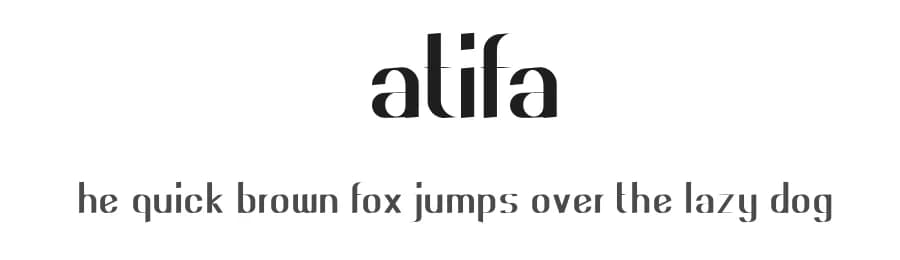
About Latifa Font
We're introducing the Baol font with a unique shape that's modern and clean. This font has a feature that you can get with different font characters (https://fontbundles.net/evloxx-studio/1157109-latifa#gtmList=5>mPos=2).
Latifa Font is a versatile sans-serif font that works for both headings and body text. Pair it with a contrasting serif or slab serif font to add visual interest and a clear distinction between titles and body copy.
Latifa Font